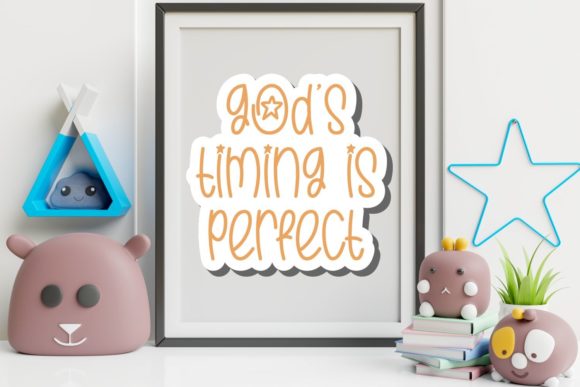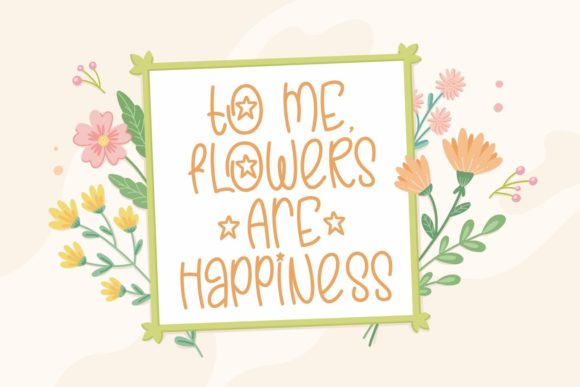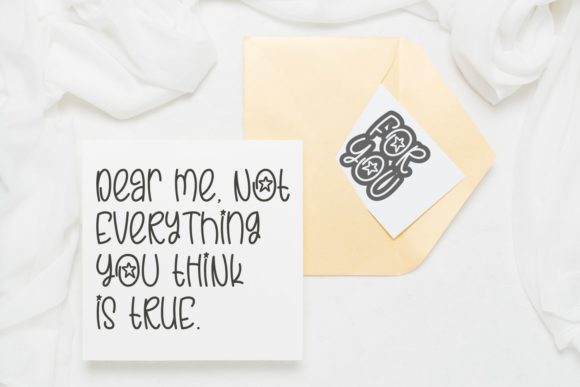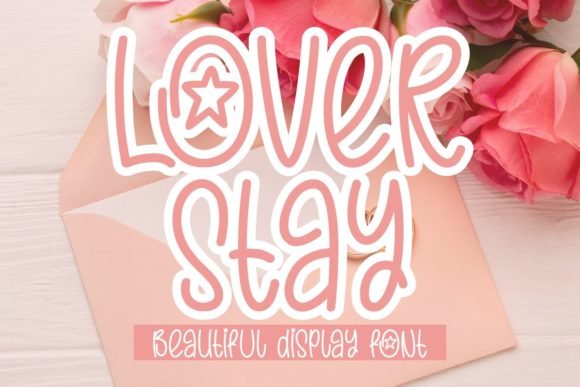
Introduction to Lover Stay Font
Lover Stay is a sweet and playful display font.
Whether you use it for cartoon related designs, children games or just any creation that requires a lovely touch, this font will be an amazing choice .
Key Features of Lover Stay Font
Why Choose Lover Stay Font?